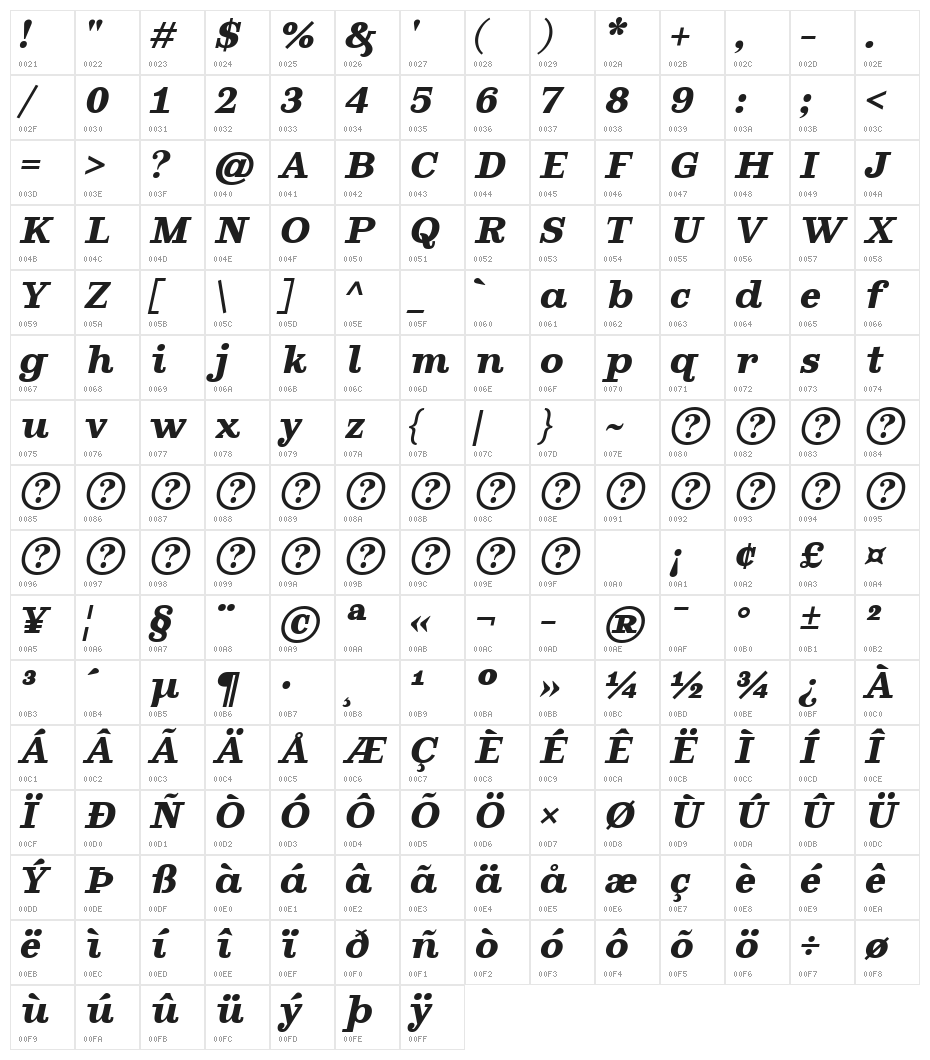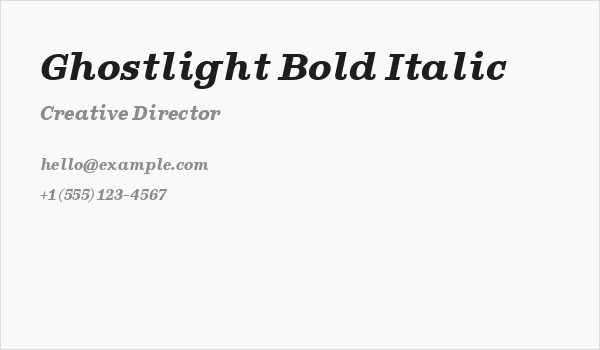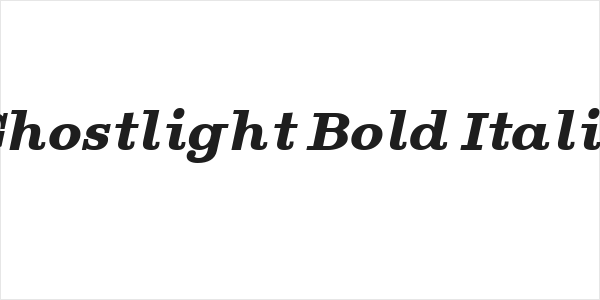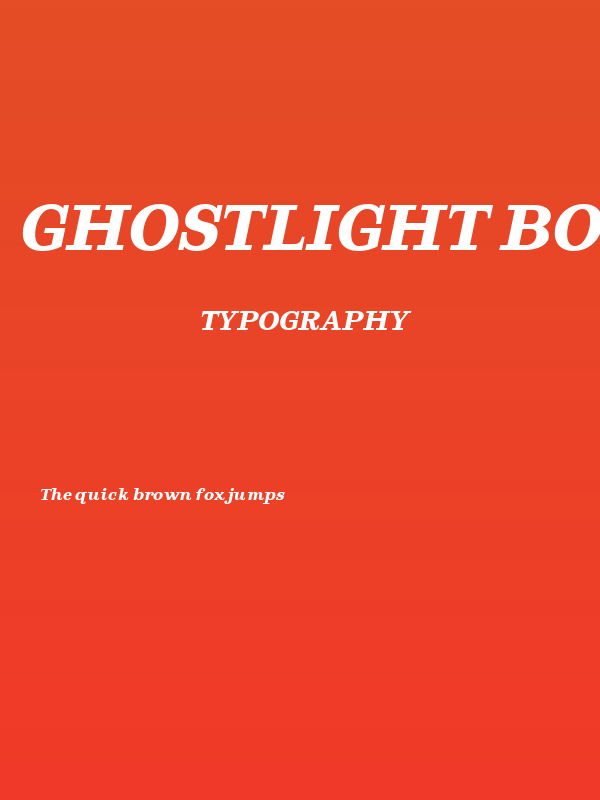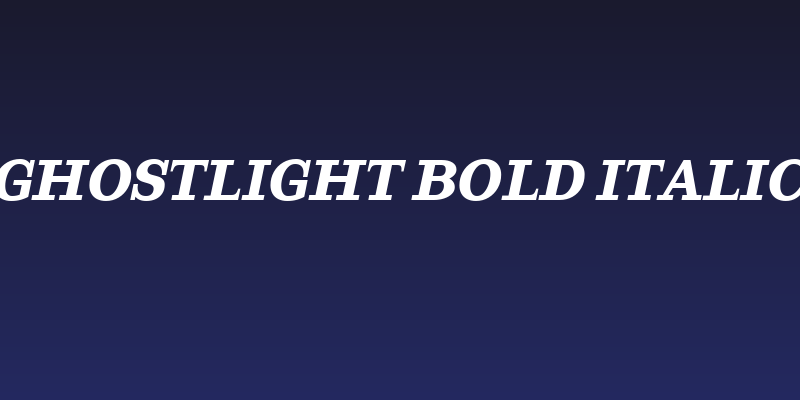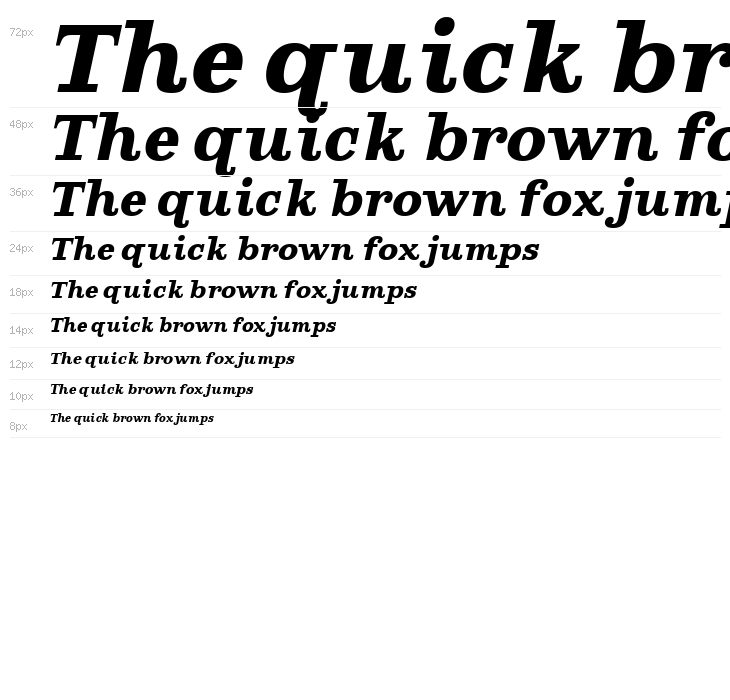
Ghostlight Bold Italic Font
Ghostlight Bold Italic Description
This font exhibits a bold and italicized style, characterized by its strong and assertive presence. The letterforms are well-defined with a noticeable slant, giving it a dynamic and energetic feel. The strokes are thick and consistent, providing a sense of stability and confidence. The uppercase letters are prominent and commanding, while the lowercase letters maintain a smooth and flowing appearance. The numerals are clear and robust, ensuring readability. Special characters are designed with the same boldness, making them stand out effectively.
| Proposed Projects | Ideal for branding, headlines, posters, and any project requiring a bold statement. |